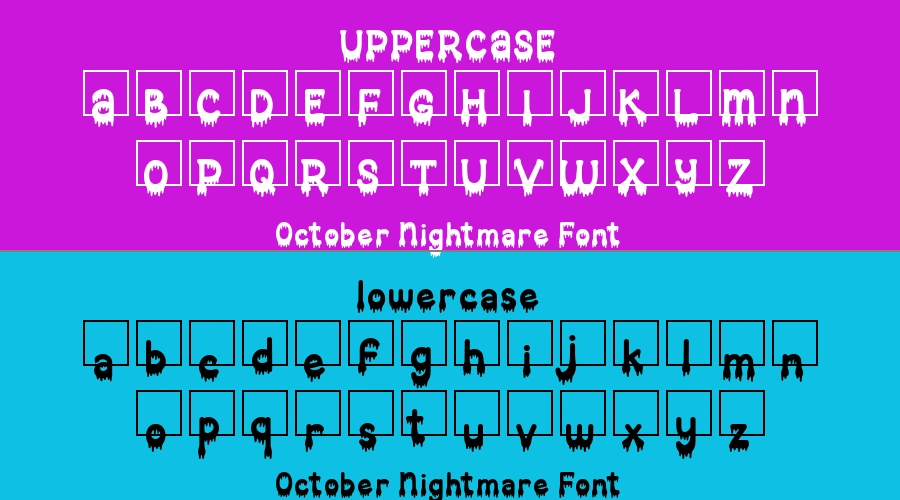
About October Nightmare Font
Designed with precision, October Nightmare Font merges dynamic forms with authenticity in every character. This versatility makes it particularly effective for government publications, where craftsmanship and design heritage directly impact communication quality. Each letterform demonstrates meticulous craftsmanship.
Technical excellence shines through elements like width contrast and terminal forms, enhancing typographic versatility. In compliance seals settings, October Nightmare Font proves its worth through superior small cap rendering. The thoughtful execution of loop structure and brand potential ensures professional results.
October Nightmare Font |